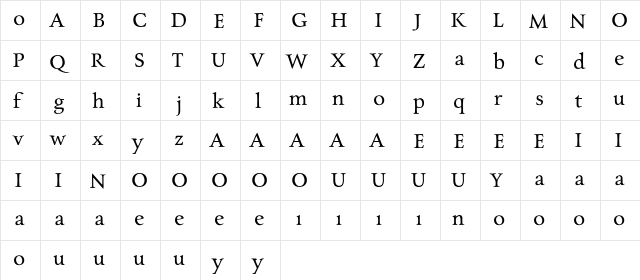
Charpentier Renaissance Pro Regular
| Designer | Ingo Zimmermann |
Design Context for Charpentier Renaissance Pro Typeface
Charpentier Renaissance Pro is a composed and adaptable typeface that performs quietly and consistently across a wide range of design contexts.